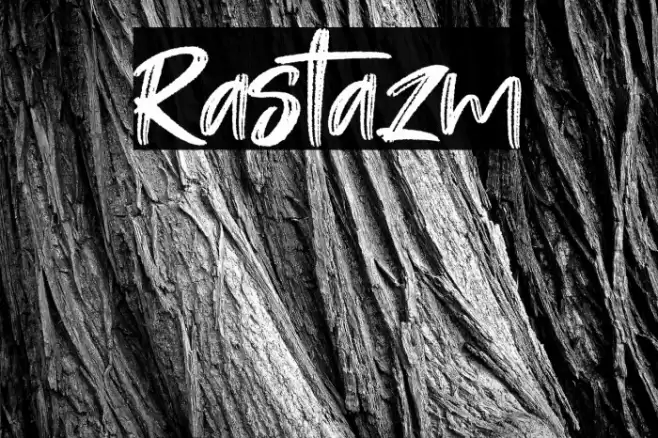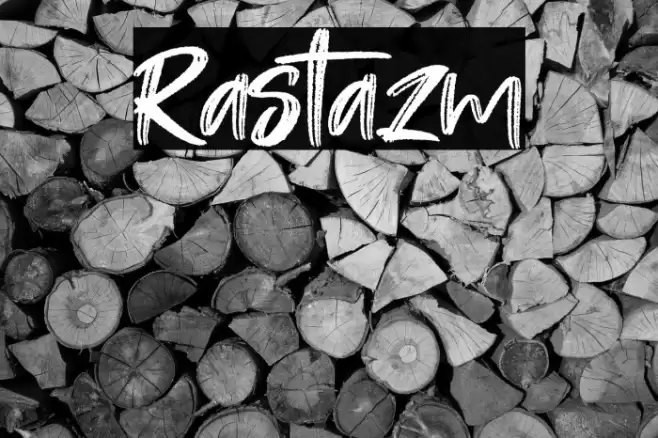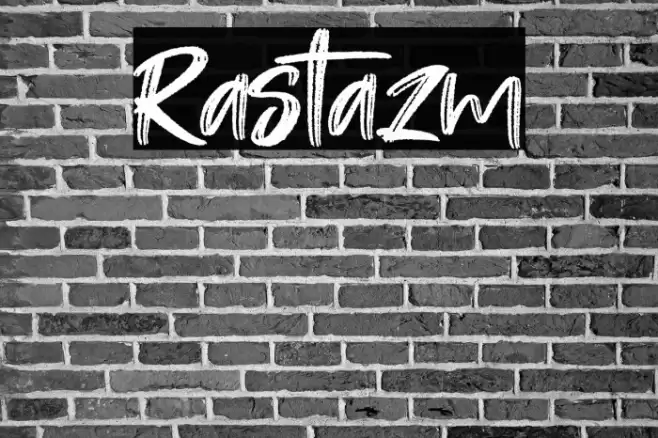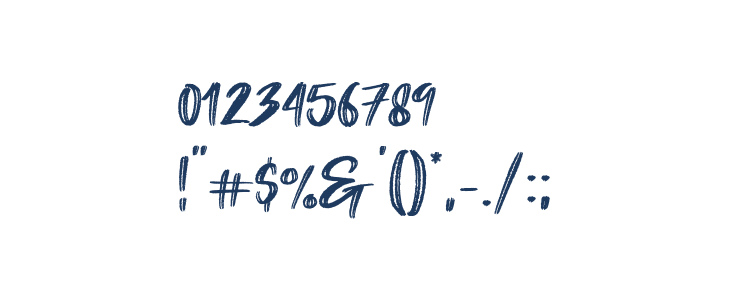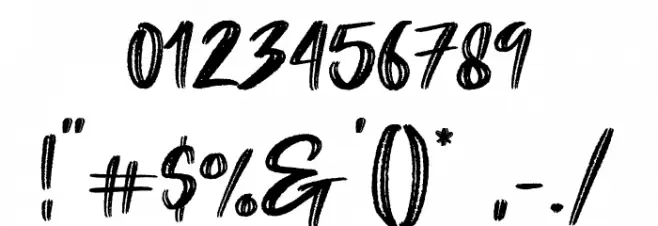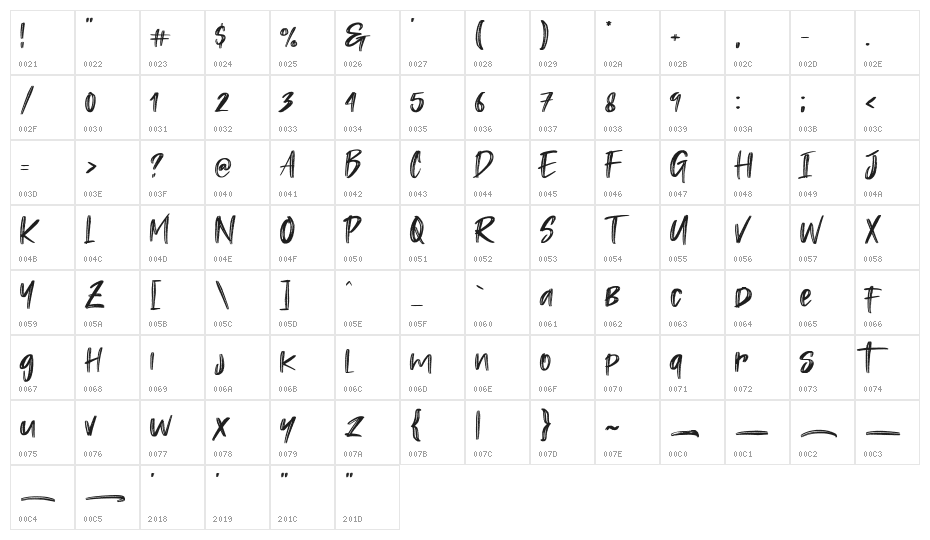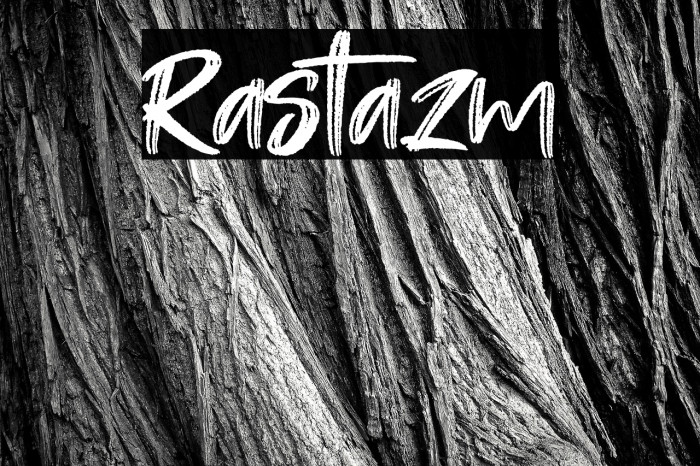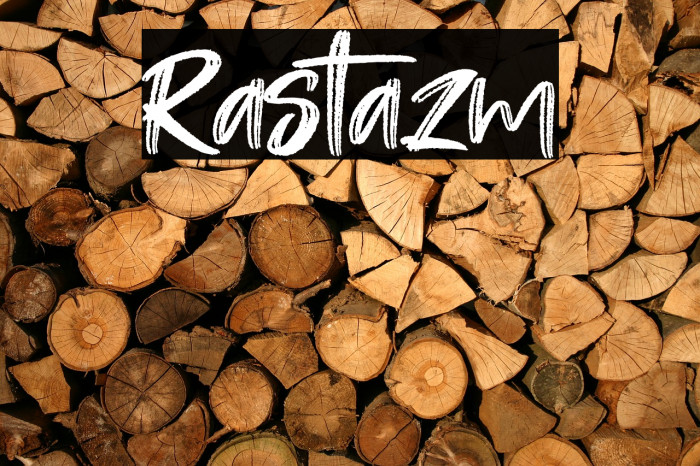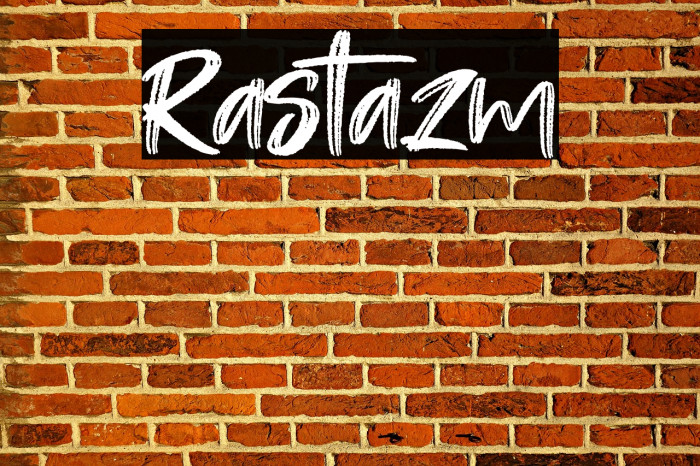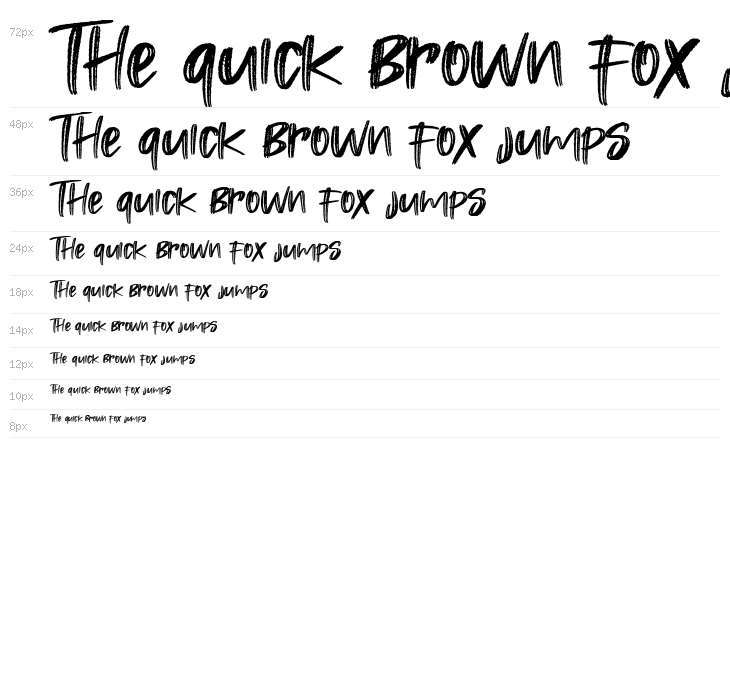
Rastazm Font
Rastazm Description
This font features a bold, energetic style with a hand-drawn appearance. The letters are characterized by their dynamic strokes and slightly irregular shapes, giving them a lively and informal feel. The uppercase and lowercase letters maintain a consistent style, with a brush-like texture that adds a sense of movement and spontaneity. The numbers and special characters follow the same aesthetic, ensuring a cohesive look across all elements. This font's unique personality makes it stand out, ideal for projects that require a touch of creativity and flair.
A bold, hand-drawn font with dynamic, brush-like strokes from Uncategorized fonts.
- Proposed Projects: Ideal for posters, branding, social media graphics, and any project needing a lively, artistic touch.